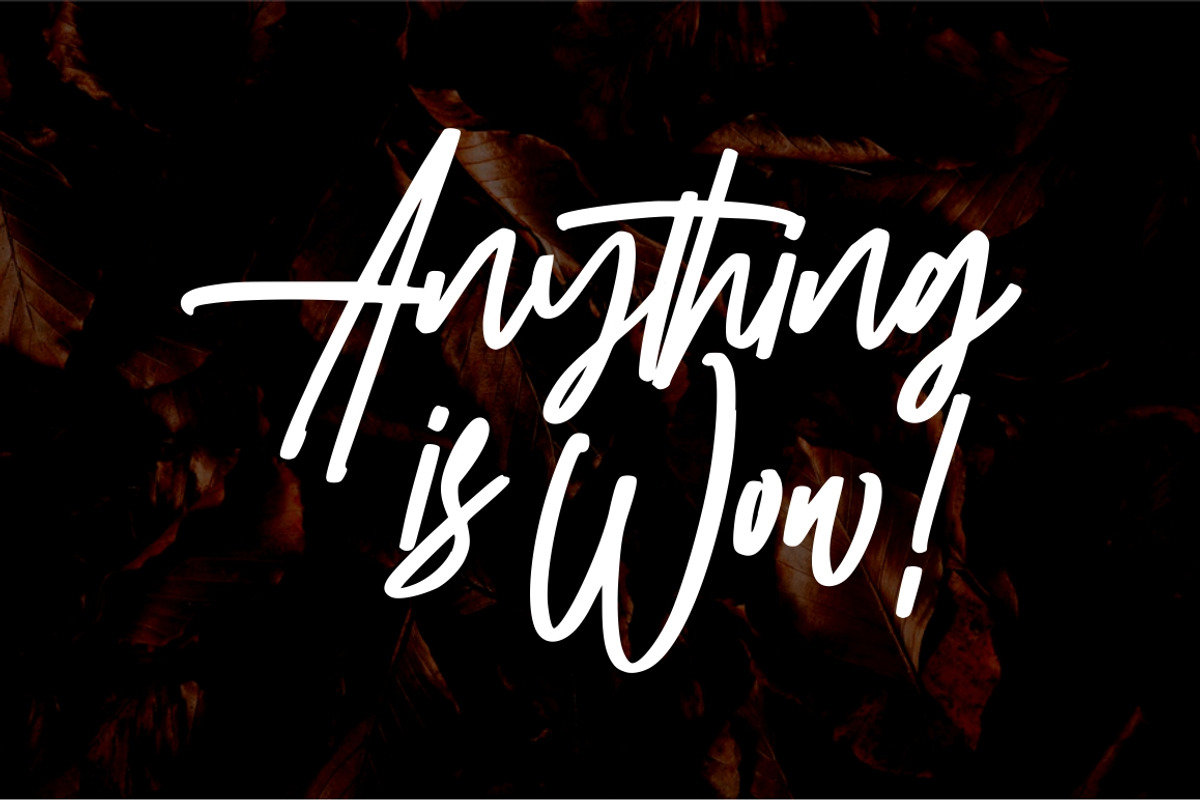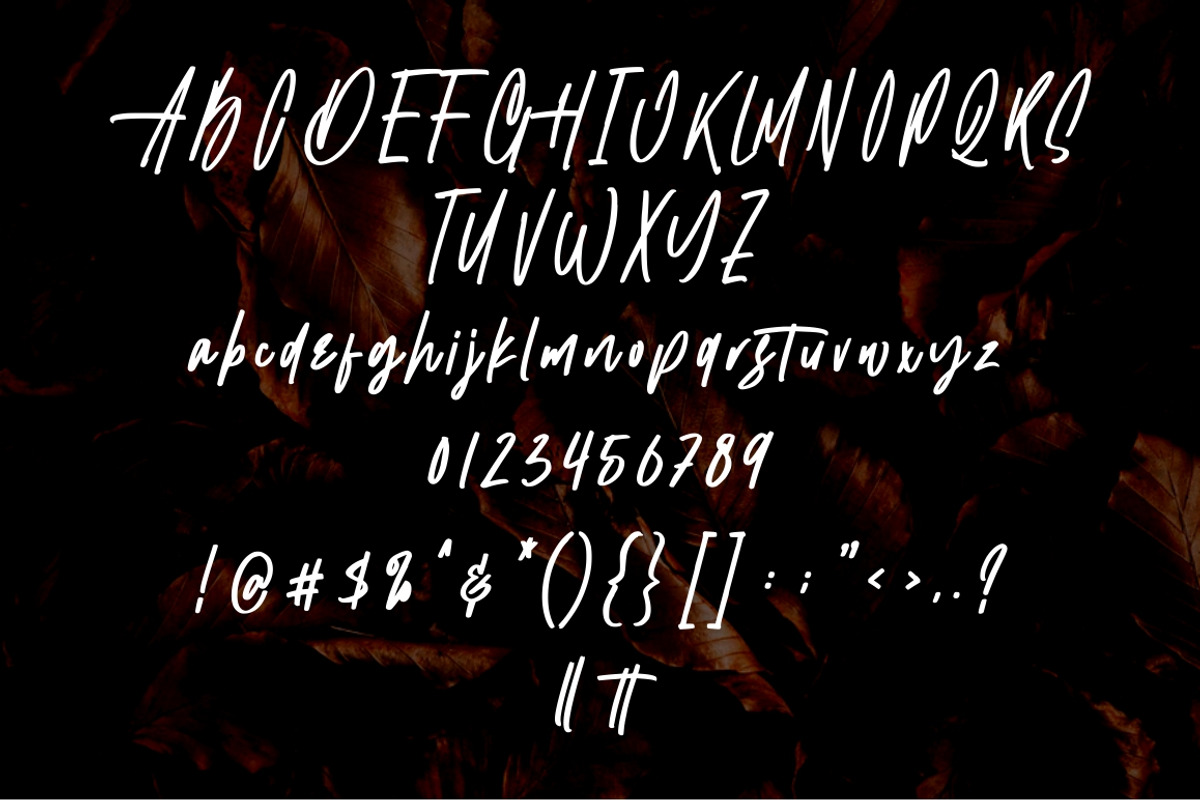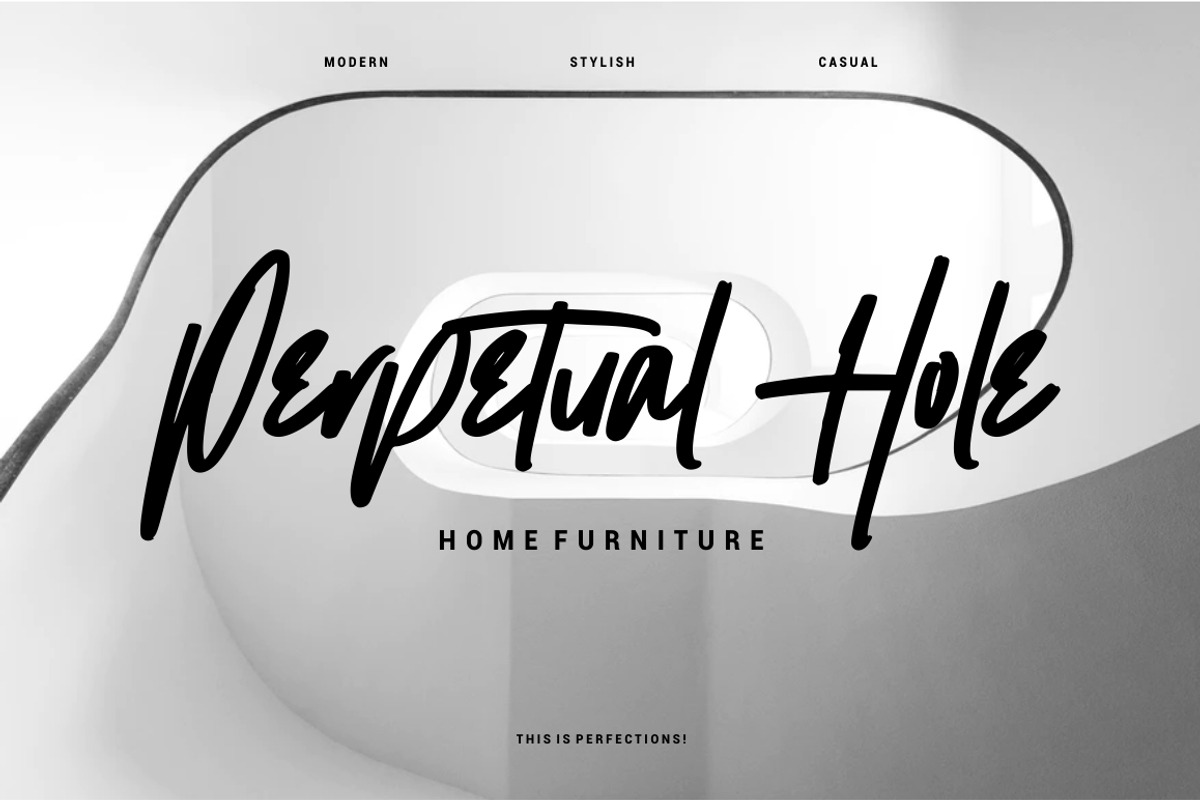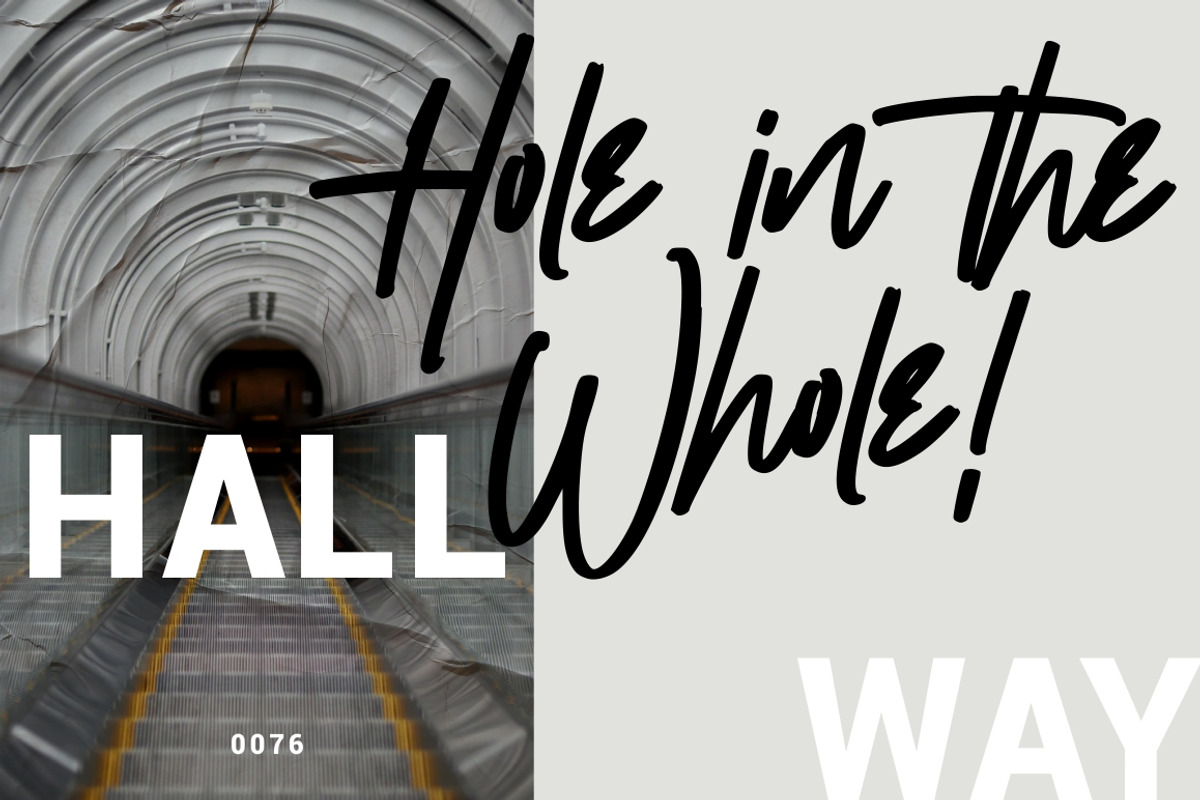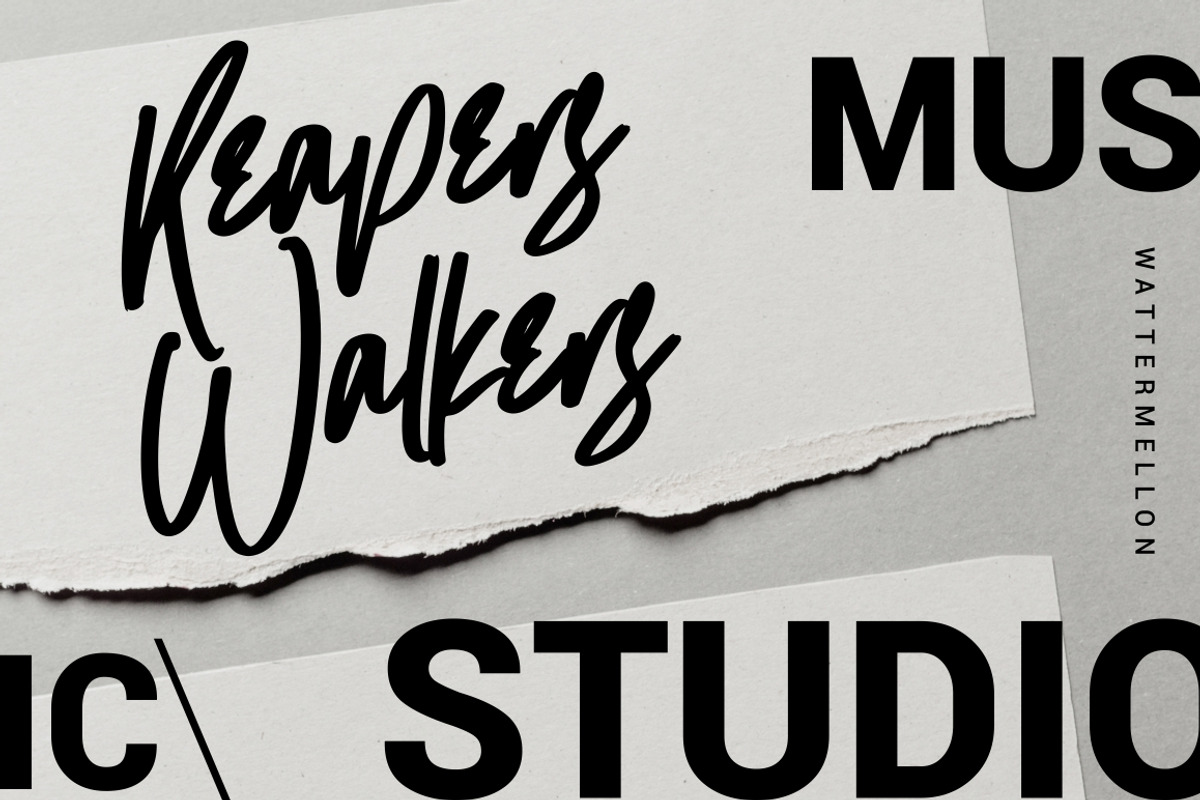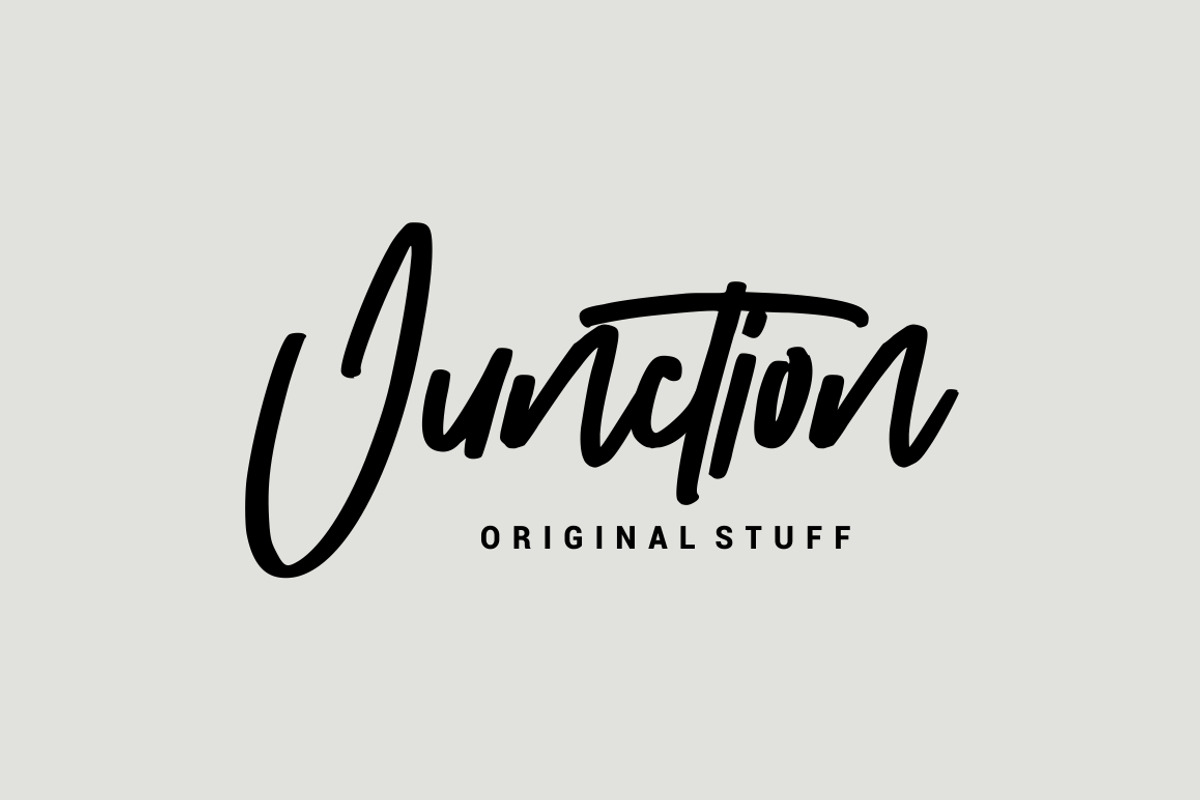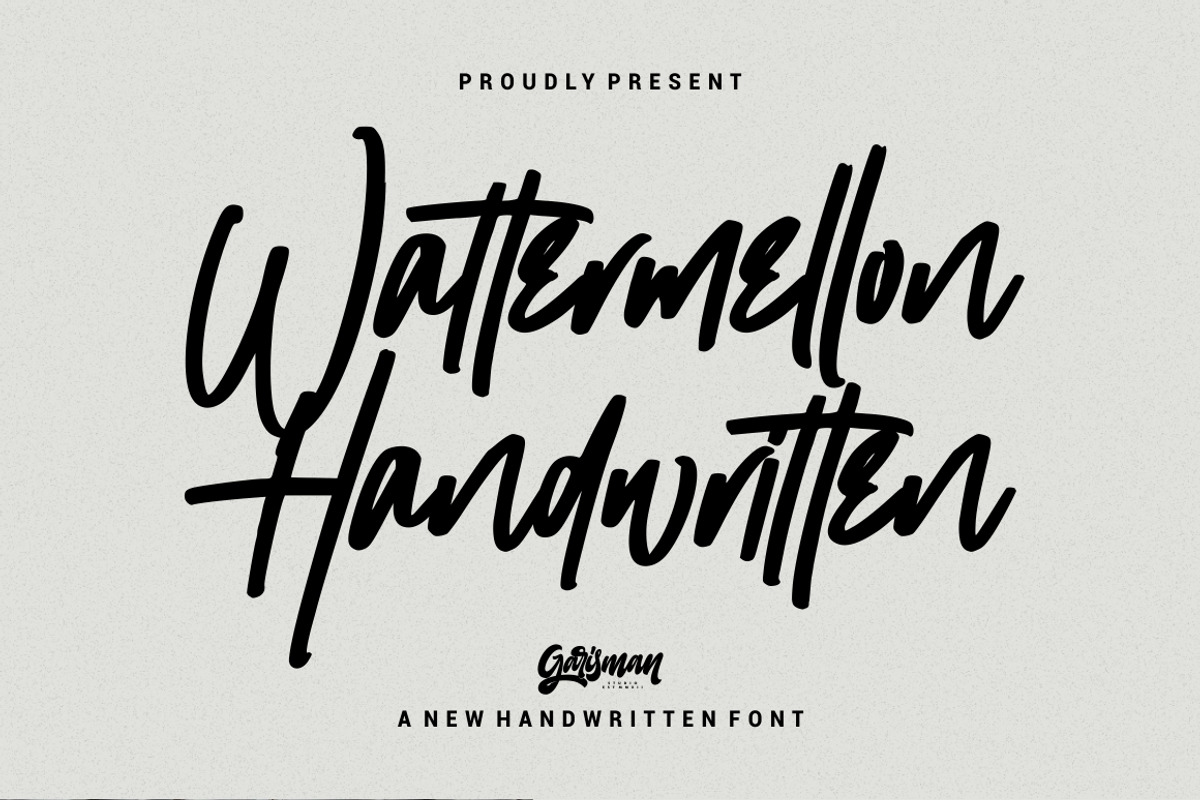
Wattermellon - Handwritten Font
Wattermellon is made a naturally modern script with a fresh modern script; delivering a stylish script which is guaranteed to add an eye-catching appeal to your logo designs, brand imagery, quotes, product packaging, merchandise & social media posts
Versatile for poster, logotype, labels, book cover
Wattermellon - Handwritten Font by Garisman Std fits naturally into Branding, posters, packaging, typography.